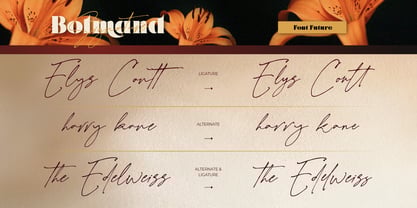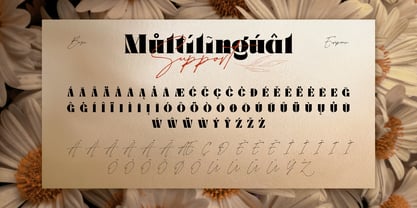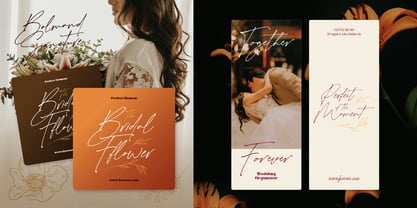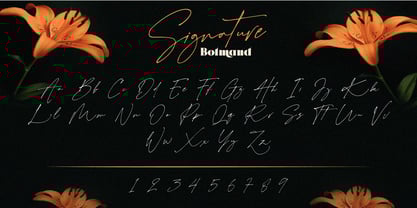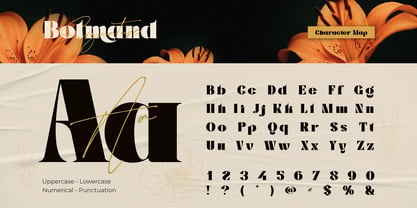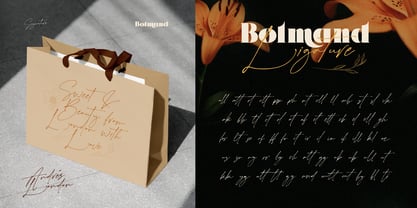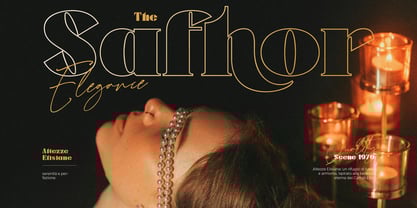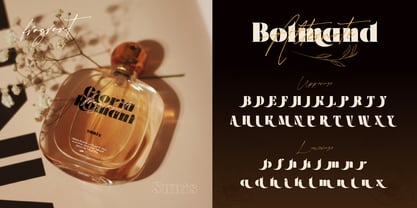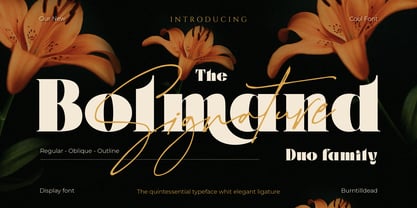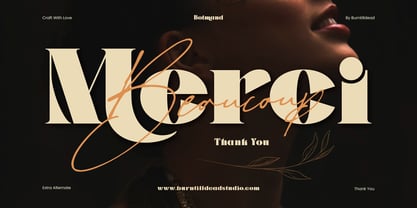
Bolmand
by Burntilldead
The Bolmand Font Family was designed by Eric Kurniawan and published by Burntilldead. Bolmand contains 3 styles and family package options. More about this family
Introducing Bolmand Signature Duo Family, a perfect blend of bold elegance and handwritten charm, Bolmand Signature is a sophisticated duo font featuring display serif and a signature script that complement each other beautifully. With three serif styles: regular, Oblique and Outline also include ligatures and alternates, giving you creative flexibility and typography aesthetics. Designed with precision, Bolmand brings a balance of modern and classic. Perfect for branding, logos, packaging, editorial design, wedding invitations, and more.
Features:
• A - Z set (Uppercase & Lowercase)
• Number
• Punctuation
• Alternate
• Ligature
• Multilingual
• Bolmand Characters Map
Designers: Eric Kurniawan
Foundry: Burntilldead